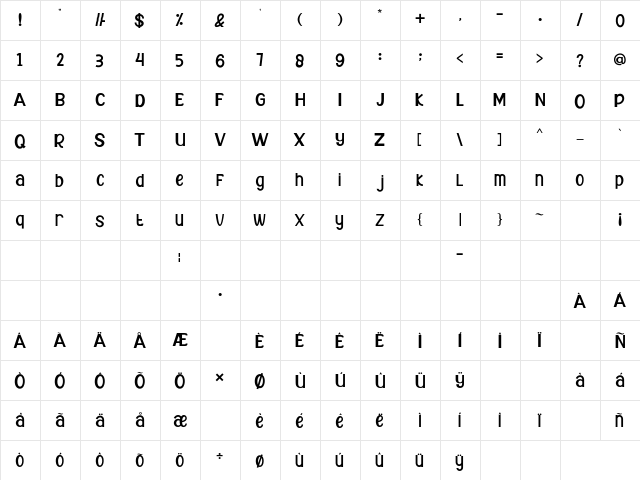
CATTY MAGIC Regular
Design Context for CATTY MAGIC Typeface
CATTY MAGIC offers clean, dependable letterforms without strong stylistic allegiance, making it a practical choice for designers who need flexibility.
Pro Tip: Use CATTY MAGIC in both headline and body roles to test its range before committing to a single application.